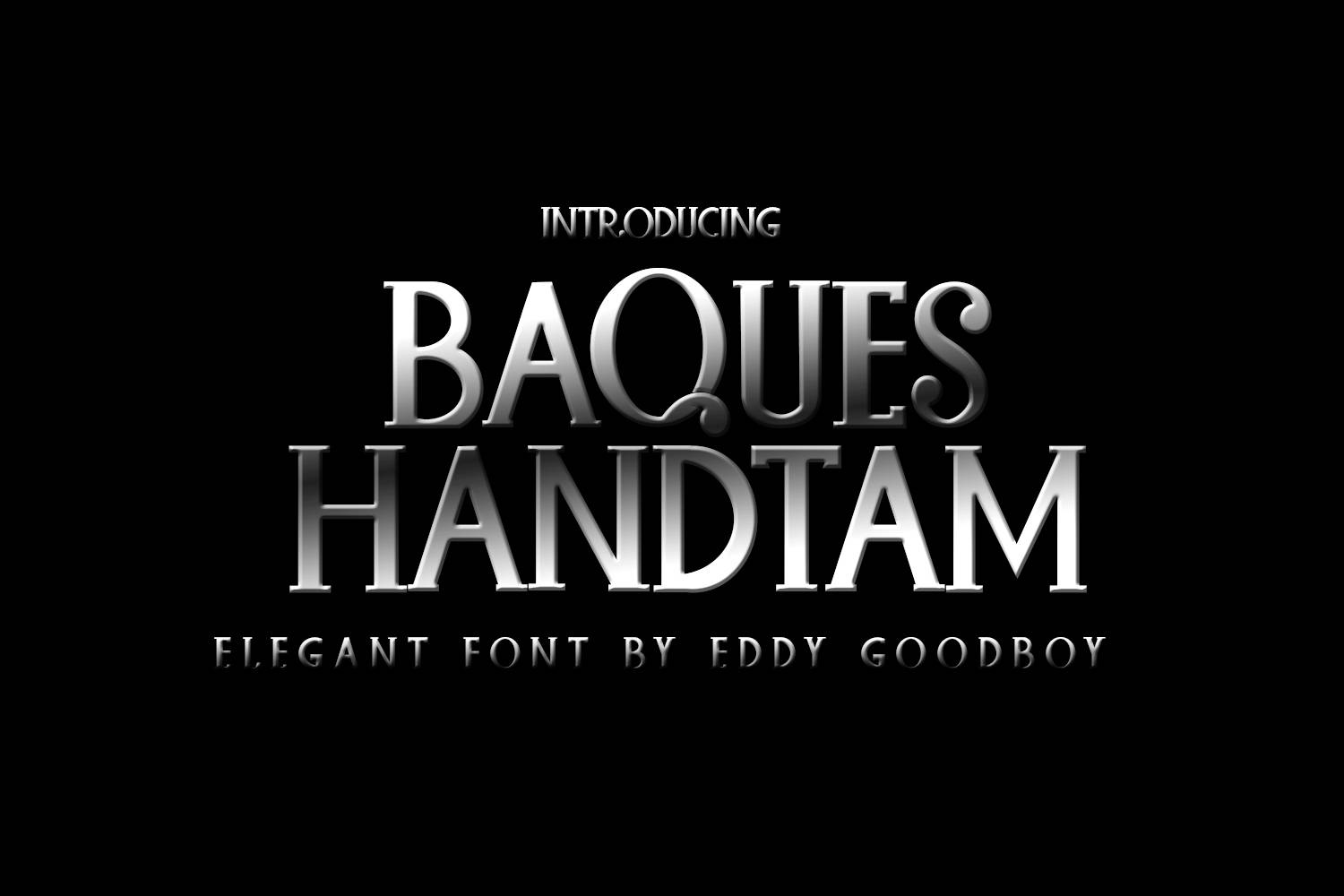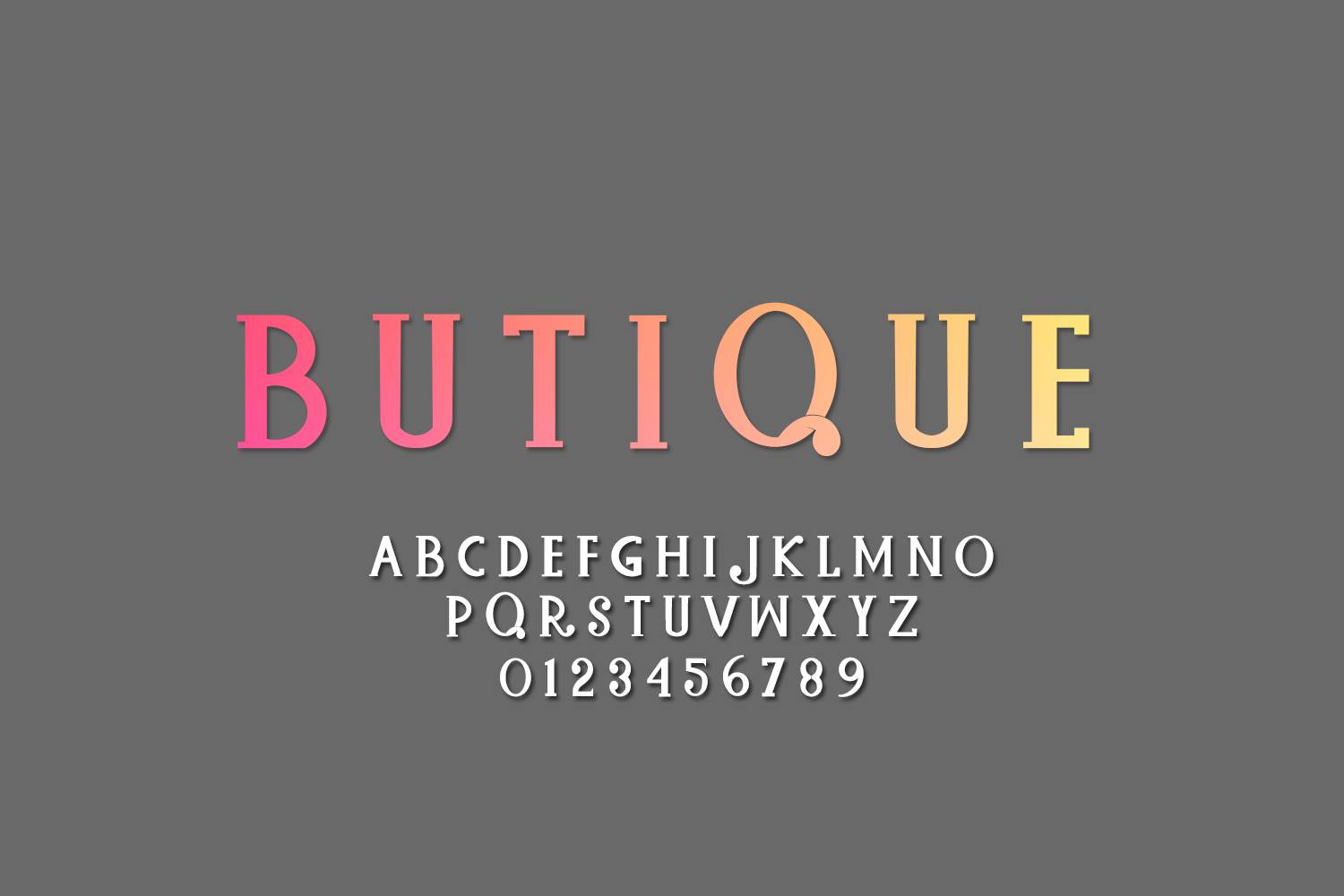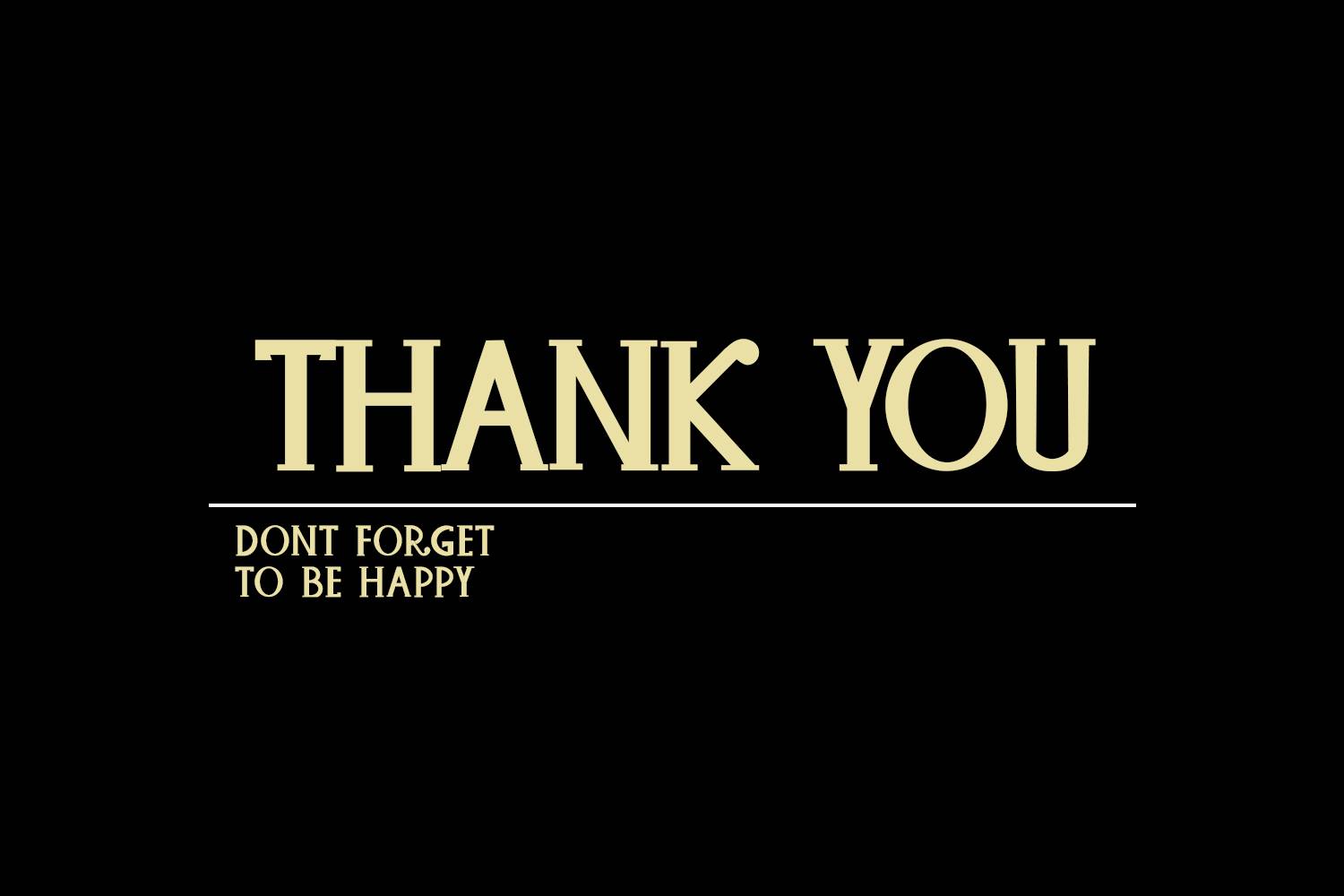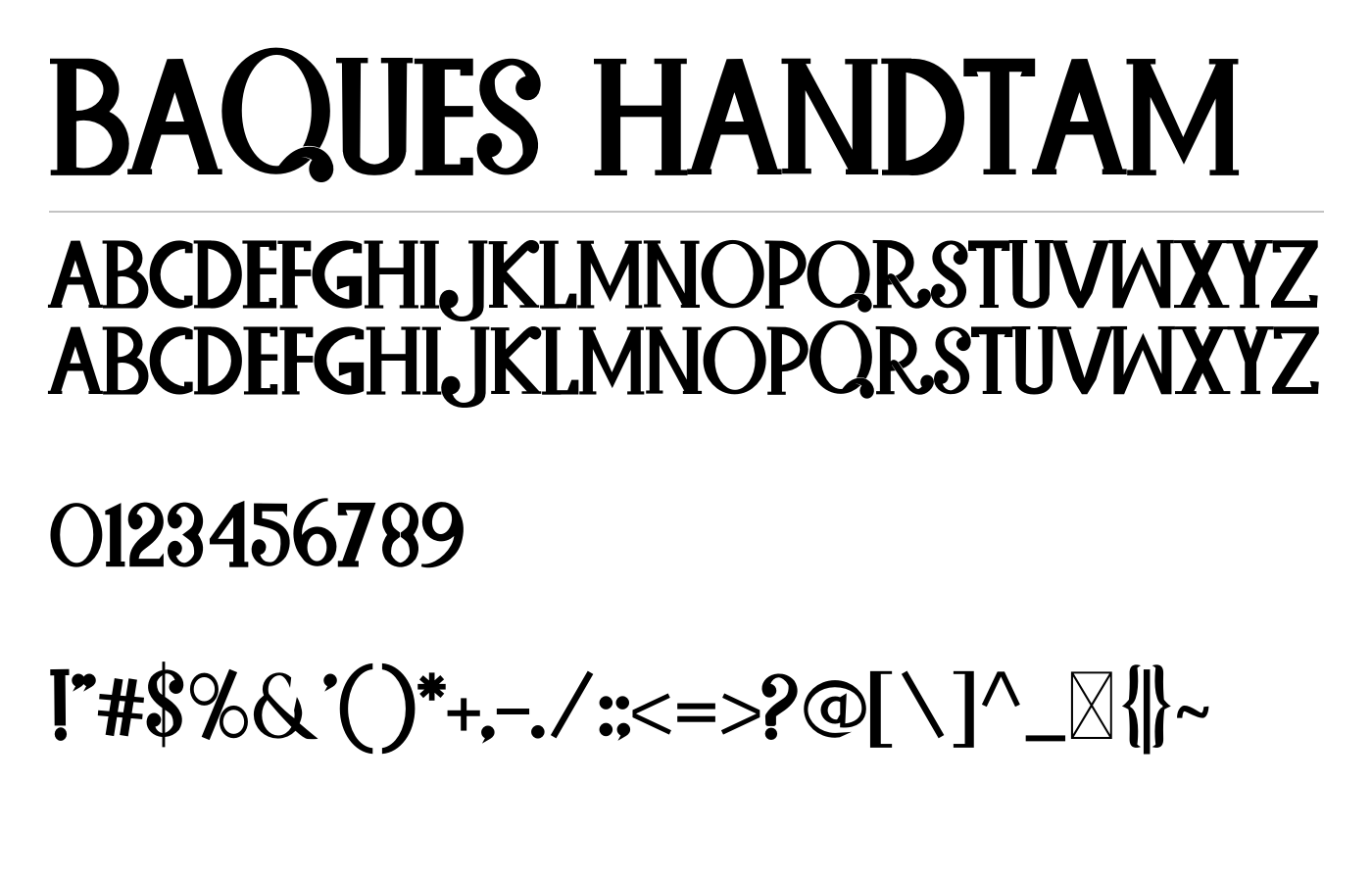
Baques Handtam is a distinctive serif font with a strong, elegant personality, characterized by its high contrast strokes and unique curled terminals that add a playful yet refined touch. Its tall, narrow letterforms with sharp serifs and clear lining figures make it well-suited for eye-catching headlines, branding, and editorial designs where a blend of sophistication and individuality is desired. This font works beautifully for projects aiming to convey artistic flair with a modern vintage vibe.
Baques Handtam Font
About Baques Handtam Font
| Font family | Baques Handtam Font |
| Release date | 2021-02-02 |
| Designer | Nur Edi Prayitno |